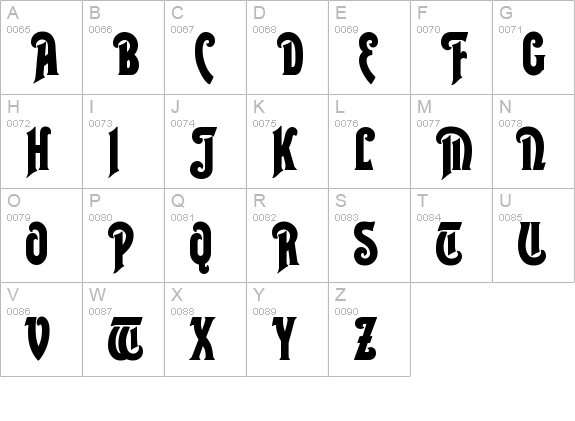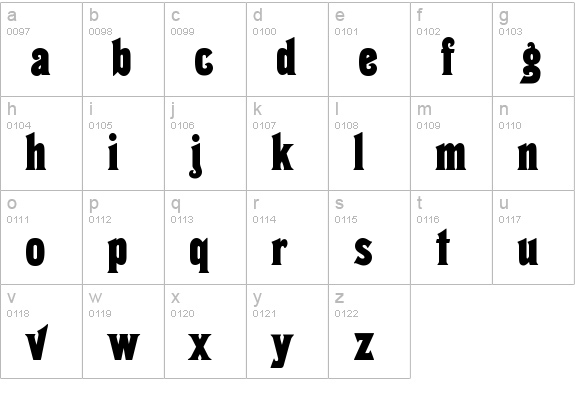
Thaleia Font Details
Thaleia font is a stunning typeface that effortlessly captures elegance and beauty. Its delicate curves and graceful lines make it perfect for any design project that requires a touch of sophistication. Whether it's used for branding, invitations, logos, or editorial work, Thaleia font adds a timeless and refined look to any piece. What makes Thaleia font even more appealing is that it is absolutely free. Yes, you read that right! This fantastic font is freely available to download at FontsMarket.com. With just a few clicks, you can have this exquisite typeface at your fingertips, ready to enhance your creativity. Thaleia font is versatile and adaptable, making it suitable for a wide range of design styles. Its legibility and readability ensure that your message will be conveyed effortlessly, while its unique personality adds a touch of character to your designs. Whether you're aiming for a classic and traditional look or a modern and contemporary vibe, Thaleia font has got you covered. Not only does Thaleia font boast a stunning visual appeal, but it also offers a wide range of weights and variants to choose from. This gives you the freedom to experiment and create unique combinations that perfectly match your design vision. From light and airy to bold and impactful, Thaleia font has the flexibility to suit any project. So why wait? Don't miss out on the opportunity to elevate your design projects with the exquisite Thaleia font. Download it for free today at FontsMarket.com and let your creativity soar to new heights.